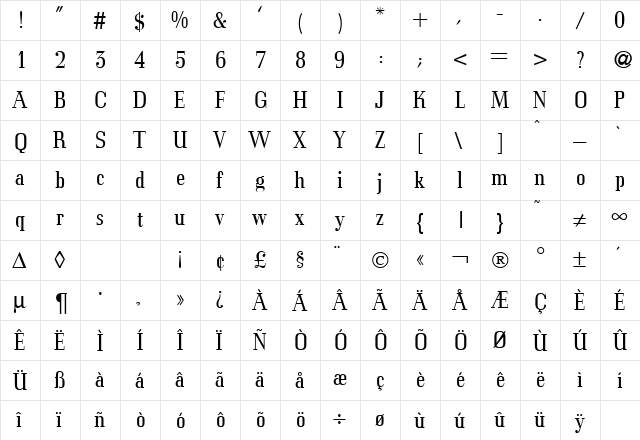
Cordial Regular Font Preview
Cordial Regular
Design Context for Cordial Typeface
Cordial offers clean, dependable letterforms without strong stylistic allegiance, making it a practical choice for designers who need flexibility.